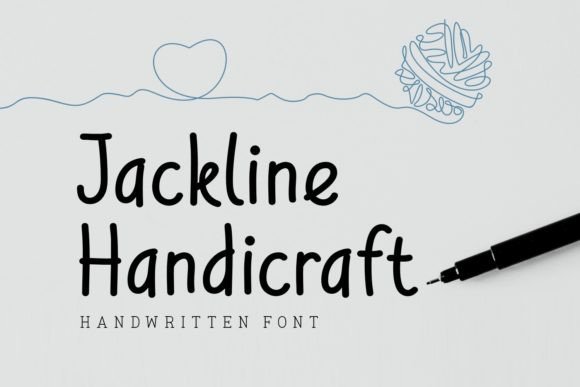
Introducing Jackline Handicraft Font: The Perfect Blend of Personal Touch and Professional Finish
In the world of typography, a font can make or break the visual identity of a brand. A well-designed font can elevate a brand’s image, convey its personality, and create a lasting impression on its audience. If you’re looking for a font that combines the warmth of handwriting with the sophistication of a professional finish, look no further than Jackline Handicraft Font. In this article, we’ll explore the features, benefits, and uses of Jackline Handicraft Font, and why it’s the perfect choice for your branding, packaging, and design projects.
What is Jackline Handicraft Font?
Jackline Handicraft Font is a stylish and clean handwritten font that brings together the best of both worlds: a personal touch with a professional finish. Its natural-looking strokes and crisp lines give it a clean and elegant look while maintaining a sense of authenticity. The font is designed to convey a sense of warmth, approachability, and friendliness, making it perfect for brands that want to connect with their audience on a personal level.
Key Features of Jackline Handicraft Font
- Handwritten with a personal touch: Jackline Handicraft Font has a unique, handwritten feel that sets it apart from other fonts. Its personal touch makes it perfect for brands that want to convey a sense of warmth and approachability.
- Clean and elegant design: Despite its handwritten feel, Jackline Handicraft Font has a clean and elegant design that gives it a professional finish. Its crisp lines and natural-looking strokes make it perfect for use in a variety of design projects.
- Highly legible: Jackline Handicraft Font is designed to be highly legible, making it perfect for use in body text, headings, and titles.
- Versatile: Jackline Handicraft Font is a versatile font that can be used in a variety of design projects, from branding and packaging to advertising and marketing materials.
Benefits of Using Jackline Handicraft Font
So why choose Jackline Handicraft Font for your design projects? Here are just a few benefits of using this stylish and clean handwritten font:
- Creates a personal connection with your audience: Jackline Handicraft Font’s personal touch makes it perfect for brands that want to connect with their audience on a personal level. Its warm and approachable feel helps to create a sense of trust and friendliness.
- Elevates your brand’s image: Jackline Handicraft Font’s clean and elegant design gives it a professional finish that elevates your brand’s image. Its sophisticated look and feel make it perfect for use in high-end branding and packaging projects.
- Increases legibility: Jackline Handicraft Font’s high legibility makes it perfect for use in body text, headings, and titles. Its clear and concise design ensures that your message gets across clearly and effectively.
- Versatile and flexible: Jackline Handicraft Font is a versatile font that can be used in a variety of design projects. Its flexibility makes it perfect for use in different contexts and applications.
Uses of Jackline Handicraft Font
So what can you use Jackline Handicraft Font for? The possibilities are endless! Here are just a few ideas to get you started:
- Branding and packaging: Jackline Handicraft Font is perfect for use in branding and packaging projects. Its personal touch and professional finish make it ideal for use in logos, labels, and packaging materials.
- Advertising and marketing materials: Jackline Handicraft Font is also perfect for use in advertising and marketing materials, such as brochures, flyers, and posters. Its clear and concise design ensures that your message gets across clearly and effectively.
- Web design: Jackline Handicraft Font can be used in web design projects, such as website headers, titles, and body text. Its high legibility and clean design make it perfect for use on digital platforms.
- Print design: Jackline Handicraft Font can also be used in print design projects, such as business cards, letterheads, and invoices. Its professional finish and personal touch make it perfect for use in a variety of print materials.
Tips for Using Jackline Handicraft Font
Here are just a few tips for using Jackline Handicraft Font in your design projects:
- Use it in combination with other fonts: Jackline Handicraft Font can be used in combination with other fonts to create a unique and visually appealing design. Try pairing it with a sans-serif font for a clean and modern look.
- Experiment with different colors and textures: Jackline Handicraft Font can be used with a variety of colors and textures to create a unique and eye-catching design. Try experimenting with different colors and textures to find the perfect combination for your project.
- Pay attention to legibility: While Jackline Handicraft Font is highly legible, it’s still important to pay attention to legibility when using it in your design projects. Make sure to use a large enough font size and clear enough design to ensure that your message gets across clearly and effectively.